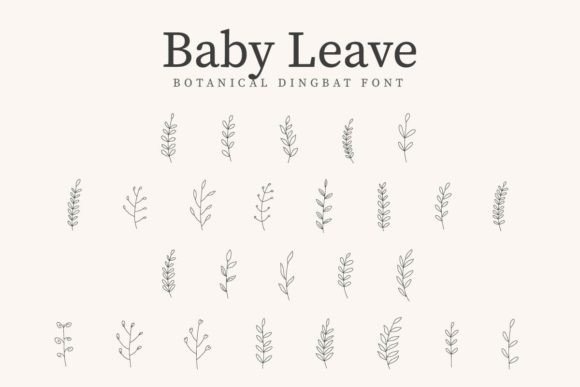
Baby Leave Font: A Whimsical Dingbat Font for Nature-Inspired Designs
Are you looking for a unique and enchanting font to add a touch of rustic charm to your designs? Look no further than Baby Leave, a delightful dingbat font filled with adorable doodle-style leaf illustrations. This whimsical font is perfect for creating wedding invitations, nature-themed artwork, scrapbooking projects, and more. In this article, we’ll explore the beauty of Baby Leave and how it can bring a breath of fresh air to your creations.
What is Baby Leave Font?
Baby Leave is a dingbat font that features a collection of charming doodle-style leaf illustrations. The font is designed to resemble hand-drawn leaves, each one unique and full of character. With its rustic and natural feel, Baby Leave is perfect for designers who want to add a touch of whimsy to their work.
The font includes a range of leaf illustrations, from simple and delicate to more intricate and detailed designs. Each leaf is carefully crafted to bring a sense of movement and life to your designs. Whether you’re creating a wedding invitation or a nature-themed artwork, Baby Leave is sure to impress.
Features of Baby Leave Font
Baby Leave font comes with a range of features that make it perfect for nature-inspired designs. Some of the key features include:
- Doodle-style leaf illustrations: Each leaf is carefully crafted to bring a sense of whimsy and playfulness to your designs.
- Rustic and natural feel: The font has a charming, hand-drawn feel that’s perfect for creating rustic and natural designs.
- Range of leaf illustrations: The font includes a range of leaf illustrations, from simple and delicate to more intricate and detailed designs.
- Perfect for wedding invitations and nature-themed artwork: Baby Leave is ideal for creating wedding invitations, nature-themed artwork, scrapbooking projects, and more.
Uses of Baby Leave Font
Baby Leave font is incredibly versatile and can be used for a range of design projects. Here are some of the most popular uses for the font:
- Wedding invitations: Add a touch of rustic charm to your wedding invitations with Baby Leave.
- Nature-themed artwork: Create beautiful nature-themed artwork, such as posters, prints, and social media graphics.
- Scrapbooking projects: Add a personal touch to your scrapbooking projects with Baby Leave.
- Stationery and greeting cards: Use Baby Leave to create beautiful stationery and greeting cards.
Tips for Using Baby Leave Font
Here are some tips for getting the most out of Baby Leave:
- Experiment with different colors: Try out different colors and textures to bring your designs to life.
- Mix and match leaves: Combine different leaf illustrations to create unique and interesting designs.
- Use with other natural fonts: Pair Baby Leave with other natural fonts, such as serif or script fonts, to create a beautiful contrast.
- Don’t be afraid to get creative: Baby Leave is a versatile font that can be used in a range of creative ways, so don’t be afraid to experiment and try new things.
Baby Leave is a beautiful and enchanting dingbat font that’s perfect for adding a touch of rustic charm to your designs. With its range of doodle-style leaf illustrations and natural feel, it’s ideal for creating wedding invitations, nature-themed artwork, scrapbooking projects, and more. Whether you’re a designer or a DIY enthusiast, Baby Leave is sure to bring a breath of fresh air to your creations.